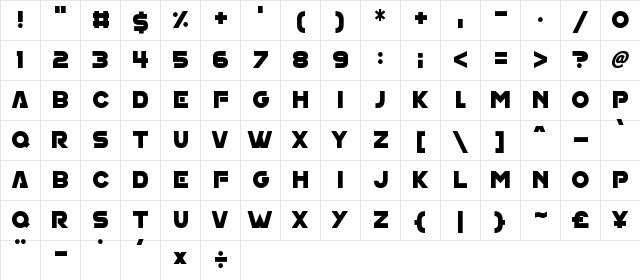
House On Mars Regular
Design Context for House On Mars Typeface
House On Mars offers clean, dependable letterforms without strong stylistic allegiance, making it a practical choice for designers who need flexibility.